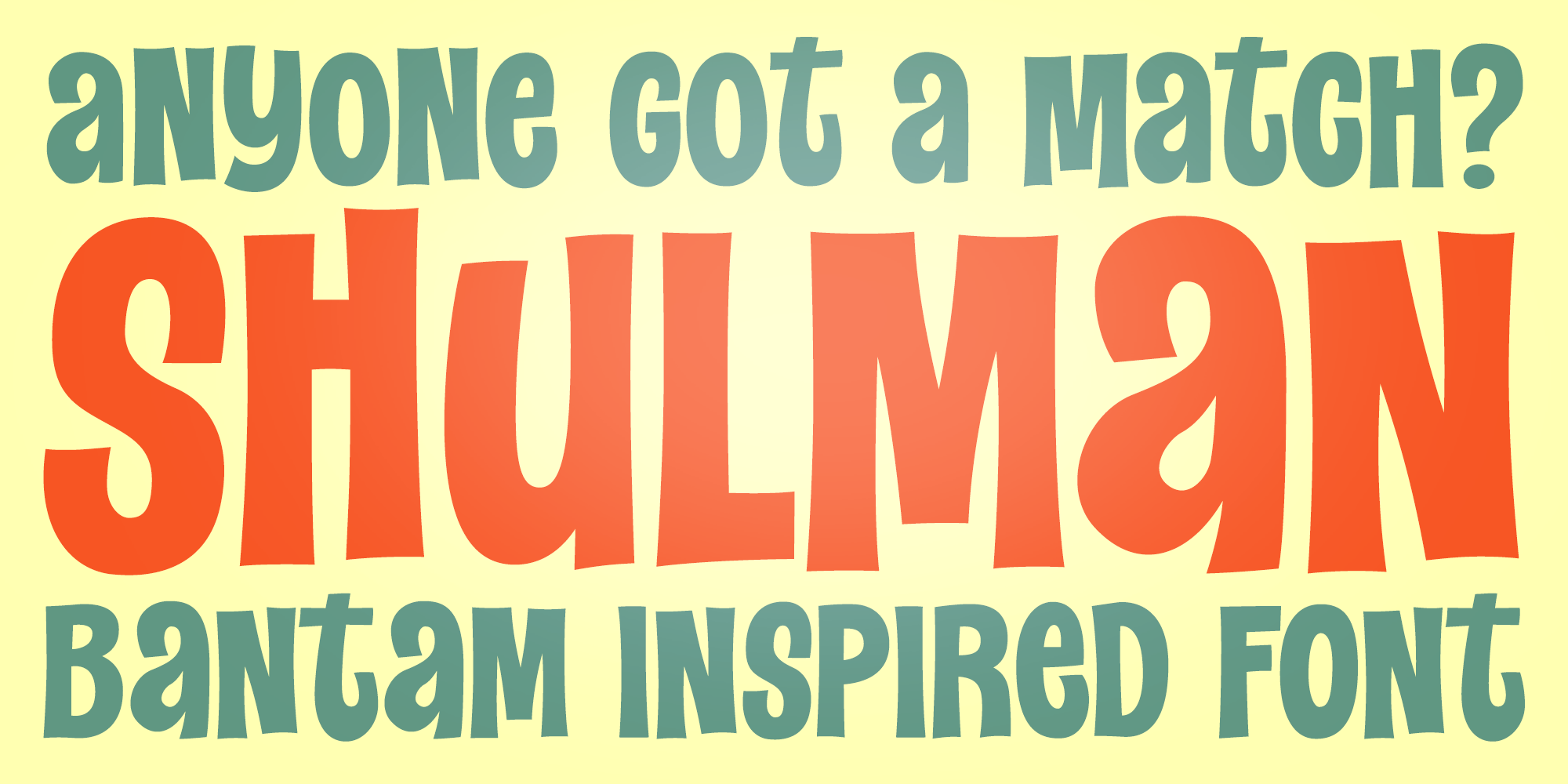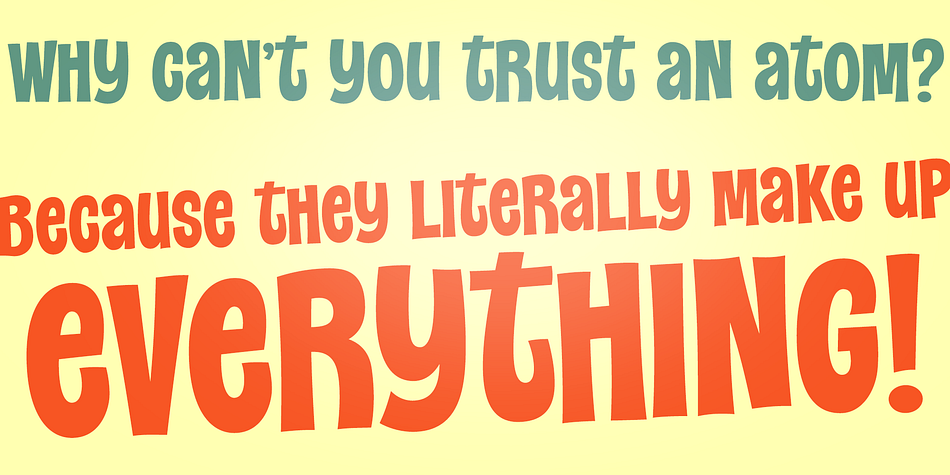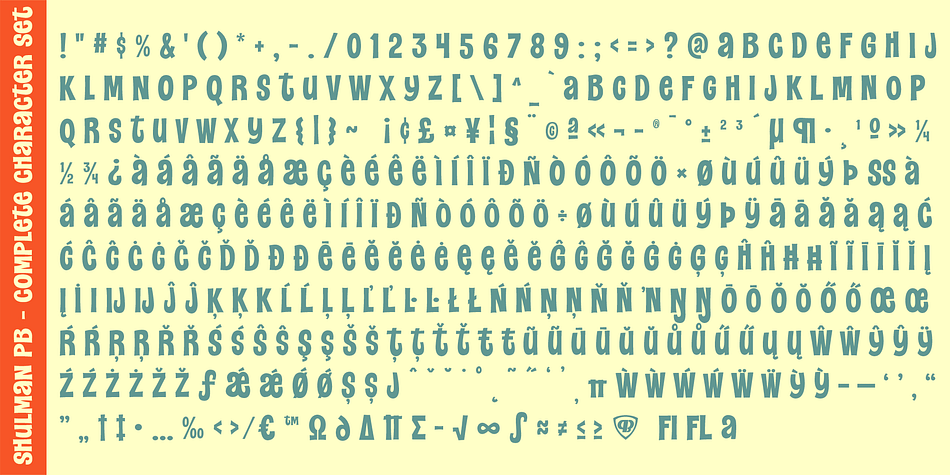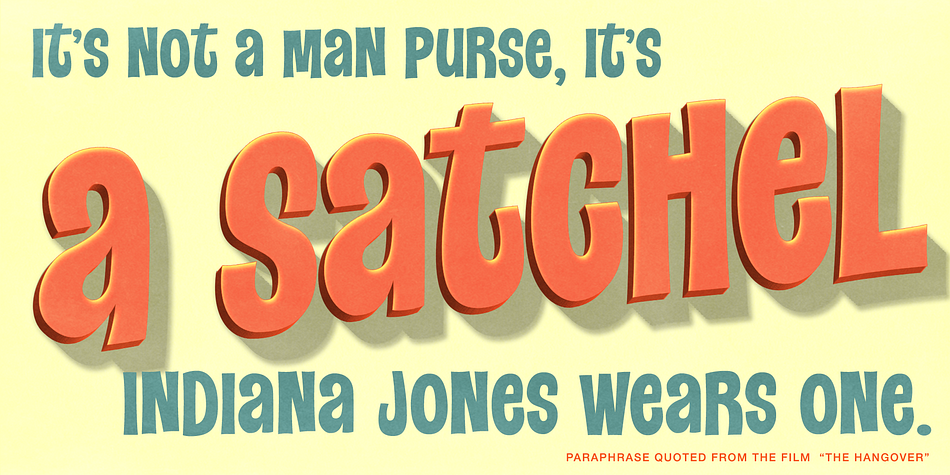
Shulman PB
Designed by Phil Bracco, Shulman PB is a retro font family published by Pink Broccoli.
Shulman PB was inspired by the title lettering on the 1st Edition paperbacks for Max Shulman’s “Anyone Got a Match?” from 1965. The lettering has a friendly and animated feel with unicase styling. These are truly the types of lettering styles that speak to me, and I was thrilled to be able to bring it to life and do the original title lettering justice. For the fun of it, I dedicated it in namesake to the author of the book.
This typeface screams fun and frolick, with that little hint of risque humor that was a signature trait of so many pulp paperbacks. Get your copy today and just go with it!